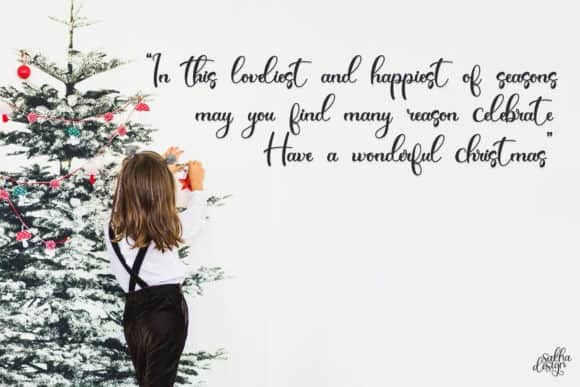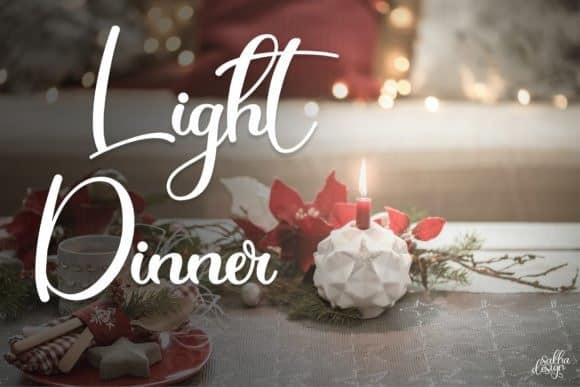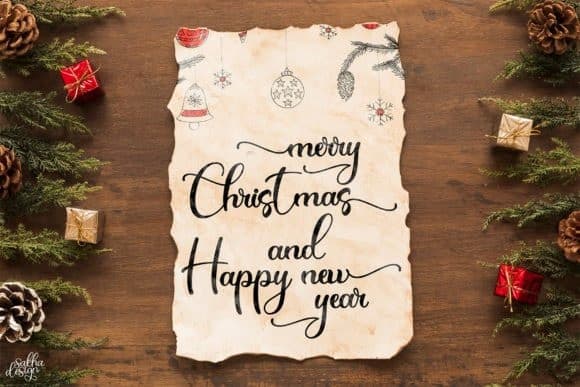
Christmas History Calligraphy Font
Christmas History Calligraphy Font is a gorgeous script font with beautiful swashes. It’s designed and shared by Sakha Design. This typeface is a friendly, fresh, rich, and elegant handwritten font. It also features a wealth of special features including alternate glyphs and ligatures. It is ideal for holiday-themed greeting cards and for any crafting project that requires a romantic touch.